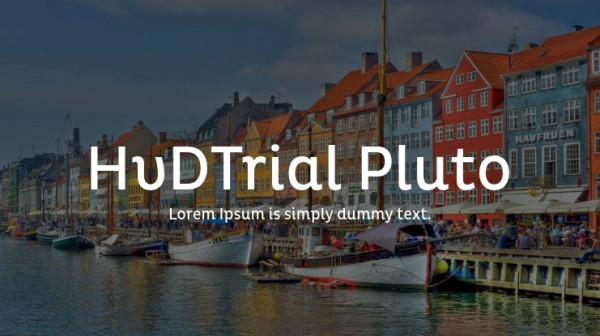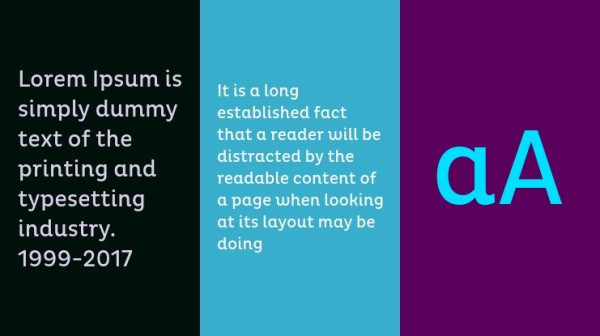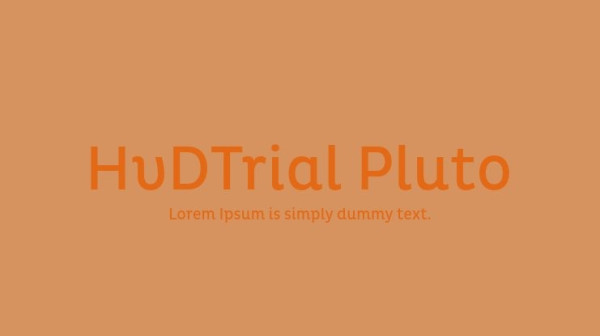
HvDTrial Pluto Font, is a sans serif stunning when combined or separately. This sans serif font style is legible and stunningly designed.
HvDTrial Pluto Font
| Designer Name: | Hannes von Doehren |
| Classification: | Display Fonts, Sans Serif Fonts |